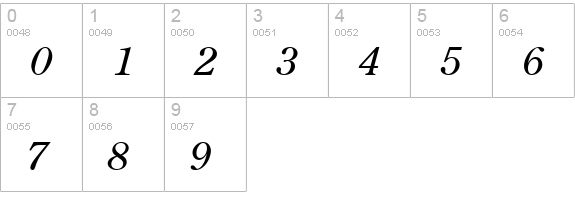
TR Centurion Old Italic Font Details
TR Centurion Old Italic is a distinctive, italic variant in the TR typeface family \xE2\x80\x94 well suited to design and typography projects.
TR Centurion Old Italic is a classic and elegant font that exudes sophistication and charm. Its timeless design and graceful curves make it perfect for adding a touch of refinement to any project. The Old Italic style gives it a sense of history and tradition, making it a versatile choice for a wide range of applications. The font is available for free download at FontsMarket.com, where users can easily access this beautiful typeface for their personal and commercial projects. Whether you're designing invitations, creating branding materials, or working on a vintage-inspired project, TR Centurion Old Italic is sure to make a statement with its unique and distinctive appearance.